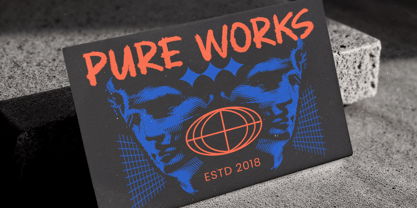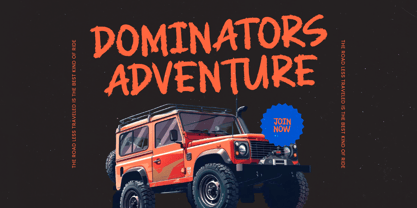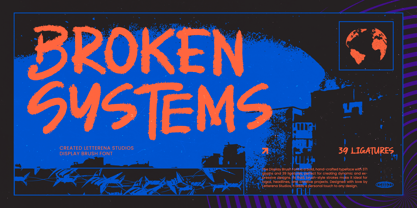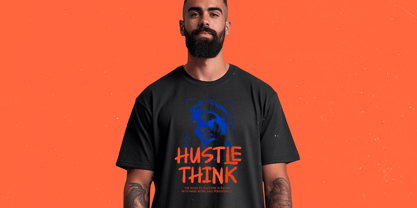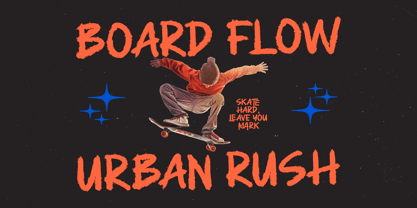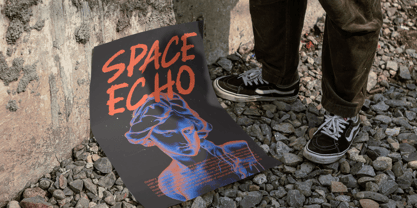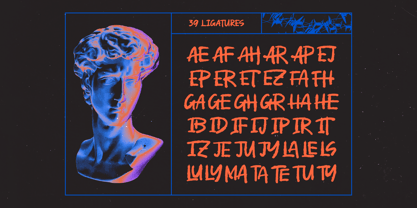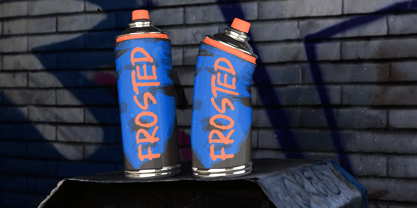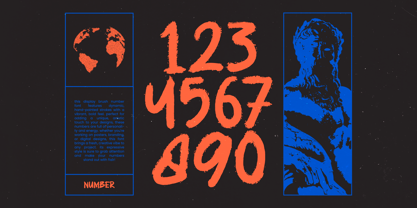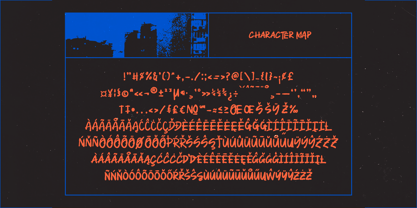
Broken System
by Letterena Studios
The Broken System Font Family was designed by Heru Utama Putra and published by Letterena Studios. Broken System contains 2 styles and family package options. More about this family
Broken Systems – Display Brush Font Broken Systems is a bold display brush font designed with raw strokes and gritty texture. Inspired by street art, urban visuals, and expressive brush lettering, this font delivers a strong and rebellious character for modern design projects. The letterforms feature rough edges, textured brush strokes, and imperfect shapes that create an authentic hand-crafted feel. Its aggressive and dynamic style makes it perfect for designs that need impact, attitude, and bold visual presence. Broken Systems includes a set of ligatures that enhance the natural brush flow, allowing designers to build expressive and edgy typography compositions. The font is highly effective for headlines, posters, music visuals, and street-inspired branding. With its raw energy and urban aesthetic, Broken Systems brings a powerful visual identity into contemporary creative work.